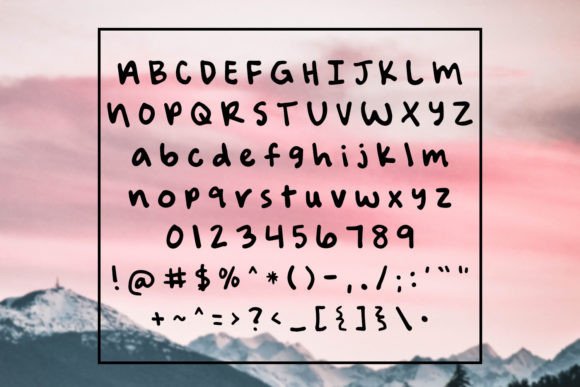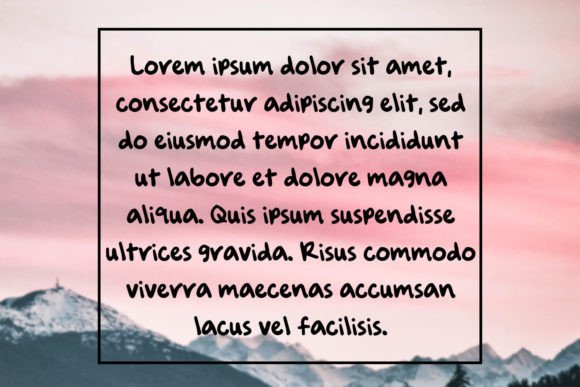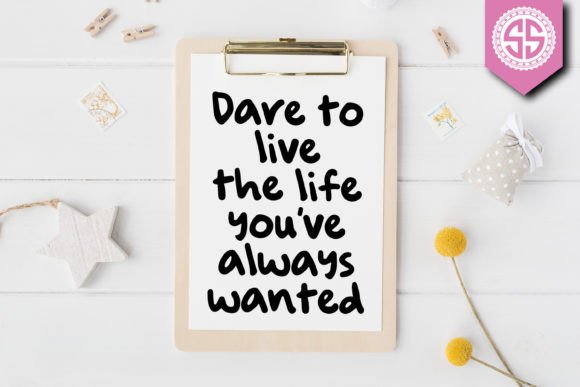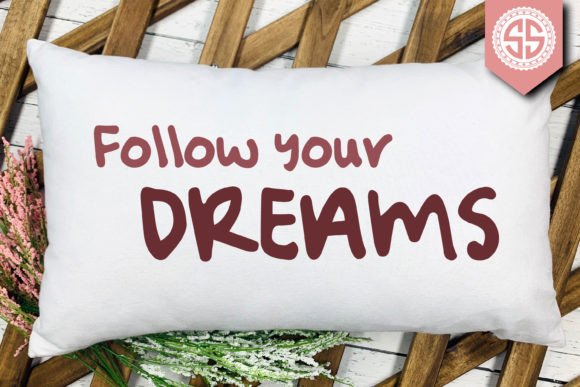
Introduction to Jellybean Font Font
Fonts play a crucial role in design, and the Jellybean Font font is a typeface that brings both character and versatility to any project. Whether you’re working on a branding project, a website, or a print design, the Jellybean Font font offers a unique style that can elevate your work.
The Jellybean font is a hand-lettered sans-serif font.
This simple and attractive handwritten font could be used for a variety of projects .
The Jellybean Font font is more than just a typeface – it’s a design tool that helps you communicate your message with style and clarity. Its unique character set and versatile design make it suitable for a wide range of applications, from elegant invitations to bold headlines.
With its carefully crafted letterforms and balanced proportions, the Jellybean Font font ensures readability and visual appeal across all mediums.
What makes Jellybean Font font special?
The Jellybean Font font stands out with its unique design, exceptional readability, and versatility across various design applications.